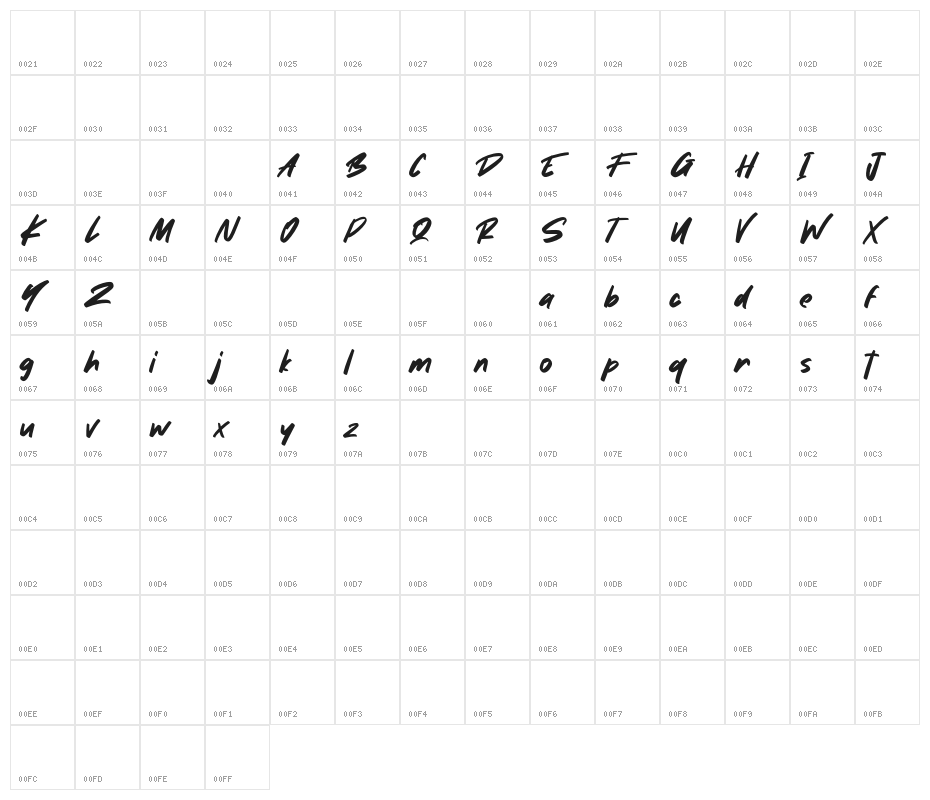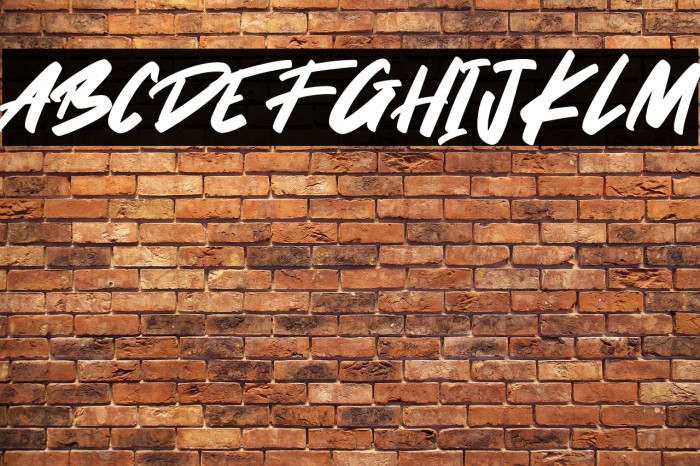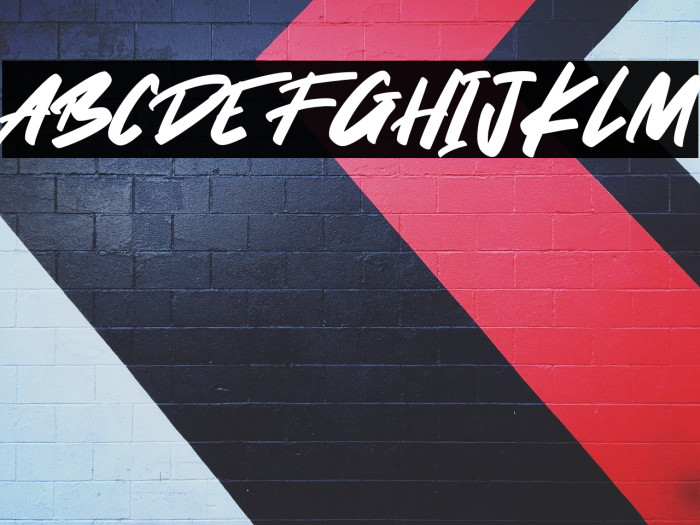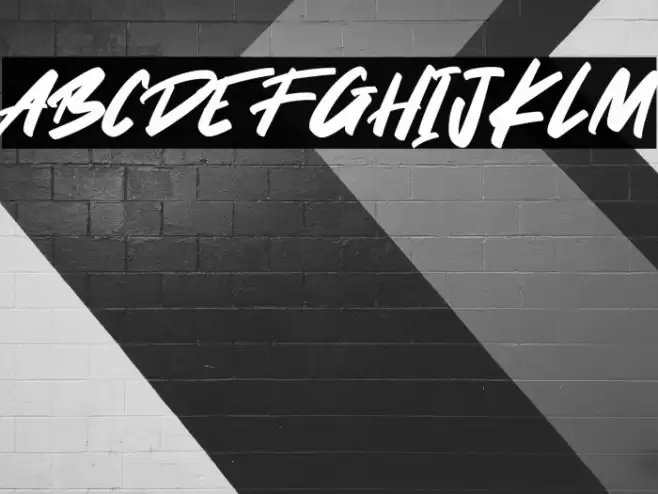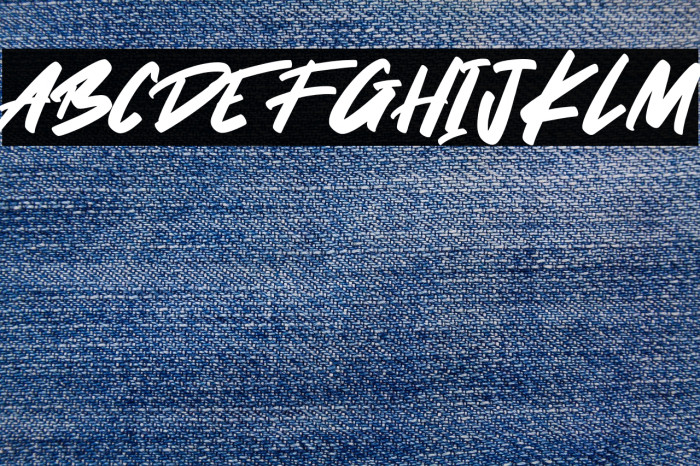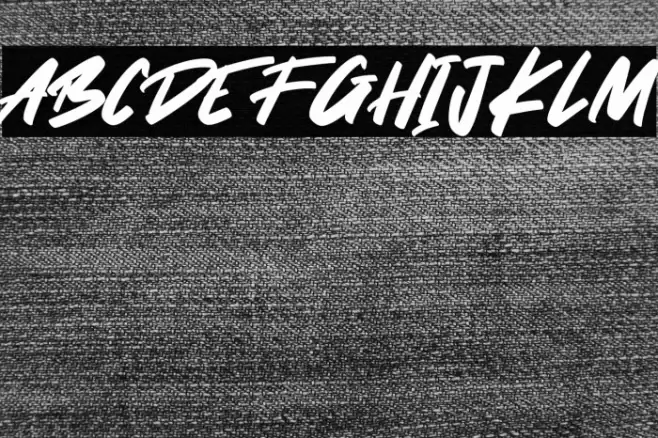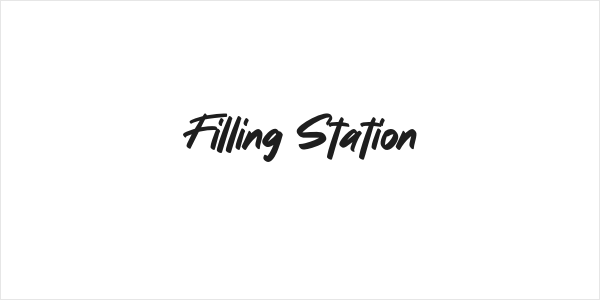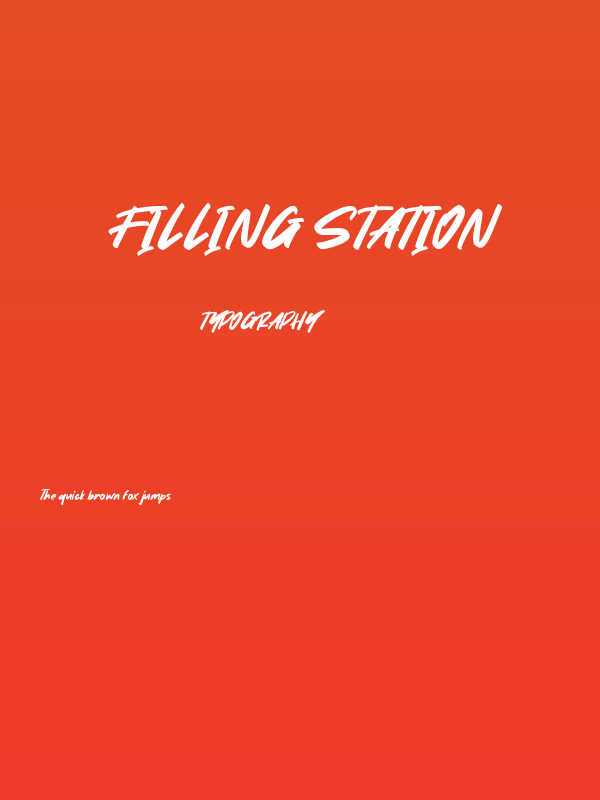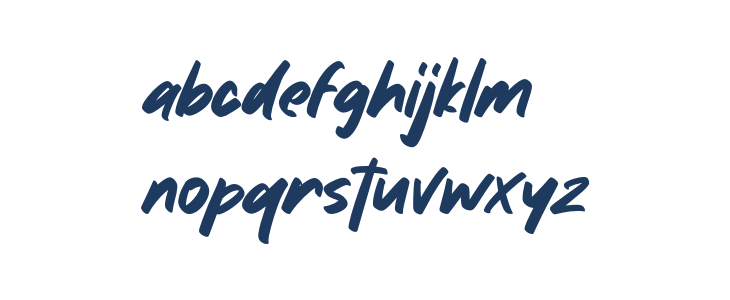
Filling Station Font
Filling Station Description
This font exudes a bold and energetic vibe, characterized by its dynamic brush script style. The letters are crafted with a sense of motion, featuring thick, sweeping strokes that convey a sense of urgency and flair. The uppercase letters are particularly striking, with their dramatic curves and angles, while the lowercase letters maintain a consistent flow that complements the overall aesthetic. This font's design is reminiscent of hand-painted signage, making it ideal for projects that require a personal, artistic touch. Its boldness ensures that it stands out in any context, capturing attention with its expressive form.
| Proposed Projects | Ideal for branding, posters, signage, and any project requiring a bold, artistic touch. |